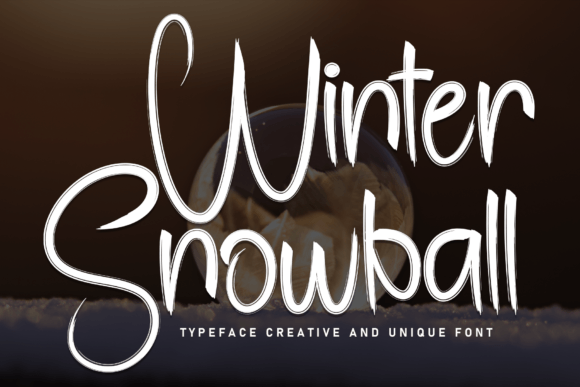
Winter Snowball: A Premium Display Typeface for Winter Web Experiences
Winter Snowball is a creative and unique typeface featuring hand-drawn, textured strokes that immediately captures the frosty charm of winter for digital interfaces. As a web designer focused on creating immersive brand experiences, I have found that selecting the right Display font can transform a standard landing page into a memorable seasonal event. This Fonts collection brings an organic, tactile quality to screens, making it an ideal choice for designers who need to convey warmth, nostalgia, or festive excitement without sacrificing professional polish.
Winter Snowball for Holiday Card Branding and Seasonal Website Headers
When integrating Winter Snowball, which features hand-drawn, textured strokes, into website headers, the result is an immediate establishment of mood that generic sans-serifs cannot achieve. In my experience designing holiday-themed e-commerce sites, using this Display typeface for hero titles creates a visual hierarchy that guides the user's eye directly to the seasonal offer. The textured nature of the letters adds depth against flat backgrounds, ensuring that your main headline stands out even when placed over complex photography or video overlays. For a boutique online store launching a Christmas collection, applying Winter Snowball to the navigation bar or top banner signals to visitors that they are entering a special, curated space. This approach not only enhances the aesthetic appeal but also reinforces the brand tone, making the digital experience feel personal and handcrafted rather than mass-produced.
Optimizing Visual Hierarchy with Textured Strokes in Hero Sections
The unique texture of Winter Snowball allows it to function as a powerful tool for controlling visual rhythm within long-scrolling web pages. When used for section headings on a product landing page, these characters break up the monotony of block text and invite the user to pause and engage. Because the font has a distinct personality, it naturally commands attention, reducing the cognitive load required for users to scan content. For instance, on a course sales page, using Winter Snowball for module titles can make the curriculum look inviting and approachable, while keeping the body copy in a clean sans-serif ensures readability remains high. This strategic pairing leverages the decorative nature of the Fonts category to highlight key information without cluttering the interface.
Winter Snowball for Creative Portfolios and Boutique Online Stores
Designers building creative portfolios often seek a Display font that reflects their artistic style, and Winter Snowball offers a sophisticated yet playful solution. The hand-drawn aesthetic suggests authenticity, which is crucial for freelancers, artists, and agency founders looking to build trust with potential clients. By incorporating this typeface into logo design elements or project case study headers, you create a consistent online identity that feels cohesive across all digital touchpoints. Whether you are showcasing a series of winter-themed illustrations or promoting a limited-edition merchandise drop, the textured strokes of Winter Snowball add a layer of premium quality that elevates the perceived value of your work.
Enhancing Conversion-Focused Layouts with Seasonal Typography
In conversion-focused layouts, every element must serve a purpose, and Winter Snowball excels at drawing attention to call-to-action areas during peak shopping seasons. While it may not be suitable for long paragraphs of body text due to its decorative nature, using it sparingly for buttons, price tags, or "Limited Offer" badges can significantly boost click-through rates. The frosty charm associated with the font triggers positive emotional responses, encouraging users to explore further or complete a purchase. For example, placing Winter Snowball on a "Shop Now" button within a holiday email campaign or on a mobile app screen can create a sense of urgency and delight. This targeted use of Fonts ensures that the design supports business goals while maintaining a delightful user experience.
Winter Snowball for Digital Ads and Social Media Graphics
Digital marketers know that capturing attention in a crowded feed requires bold, distinctive typography, and Winter Snowball delivers exactly that with its creative and unique character. When adapting this Display font for social media graphics or display ads, the hand-drawn, textured strokes ensure that the message stands out against the uniformity of standard UI elements. The font’s ability to capture the frosty charm of winter makes it perfect for time-sensitive promotions, allowing brands to quickly communicate a seasonal theme without relying solely on imagery. Designers can leverage this versatility to create a unified visual language across Instagram stories, Facebook banners, and Google display networks, ensuring that the brand identity remains strong regardless of the platform.
Ensuring Readability Across Mobile Screens and Responsive Layouts
As a UI designer, prioritizing readability on smaller devices is non-negotiable, and Winter Snowball requires careful scaling to perform well on mobile screens. The textured details of the letters can sometimes blur if the font size is too small, so it is best reserved for headlines, subheads, and short phrases rather than dense text blocks. When implementing Winter Snowball in responsive web designs, test the font at various breakpoints to ensure the hand-drawn strokes remain crisp and legible. Pairing it with a highly readable sans-serif font for body copy creates a balanced contrast that maintains accessibility while preserving the festive aesthetic. This strategy ensures that users on smartphones and tablets can easily read your content, whether they are browsing a blog post about winter fashion or checking out a digital product.
Winter Snowball for Branded Web Content and Email Marketing
For content creators and newsletter designers, maintaining a consistent brand voice is essential, and Winter Snowball provides a distinct voice that resonates during the colder months. Using this Fonts collection in email headers or blog post titles helps to segment content and signal to readers that they are viewing special seasonal material. The unique texture adds a layer of sophistication that differentiates your communications from competitors who rely on standard system fonts. Whether you are sending out a holiday greeting card via email or updating a corporate blog with winter industry insights, Winter Snowball ensures that your message feels crafted and intentional.